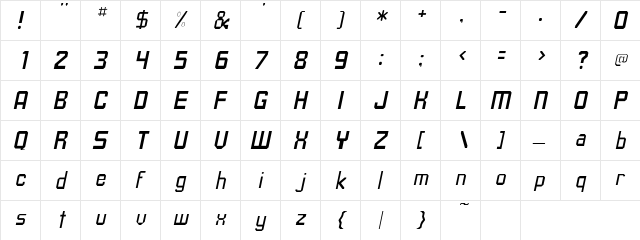
TavisSSK Italic
Design Context for TavisSSK Typeface
TavisSSK takes a measured approach to typography — its balanced proportions and neutral character make it a reliable workhorse for both digital and print work. Its italic angle brings a sense of urgency and motion to the letterforms.
Pro Tip: Try TavisSSK for annotation and caption copy alongside an upright companion — the contrast in angle creates a dynamic but ordered typographic system.